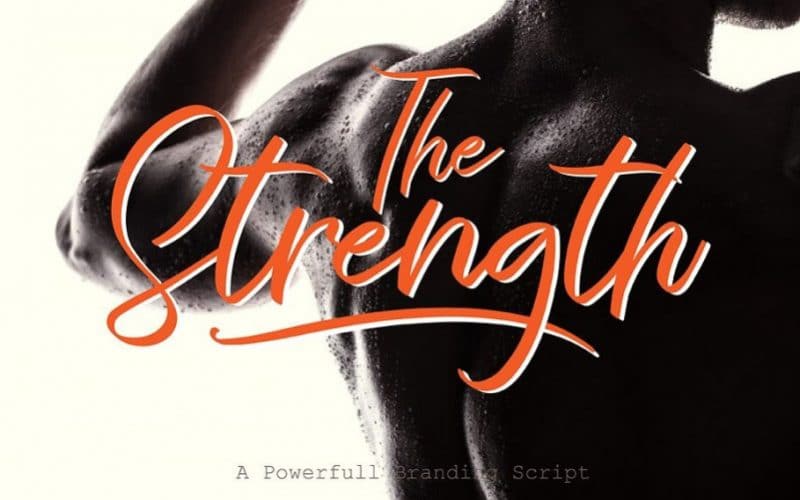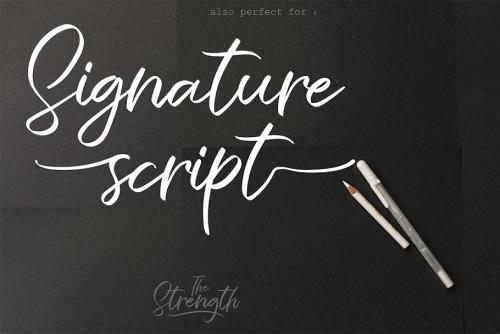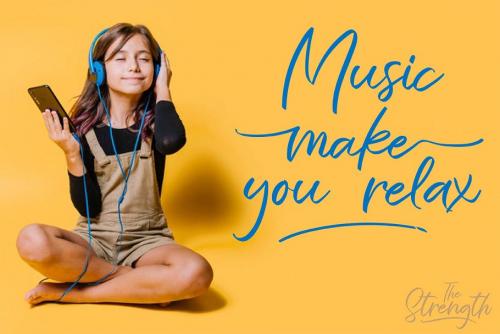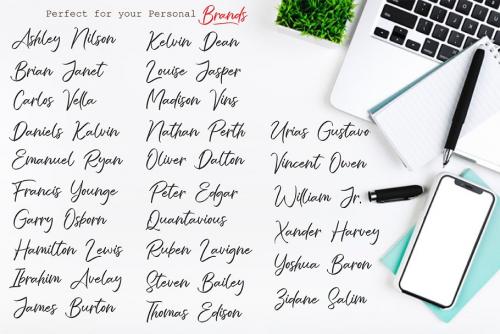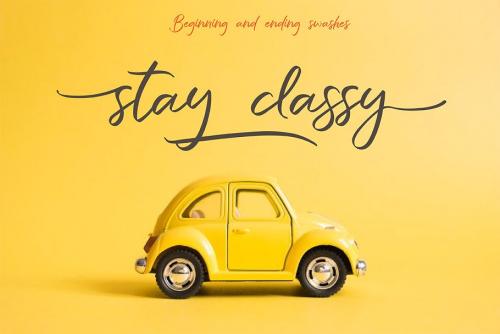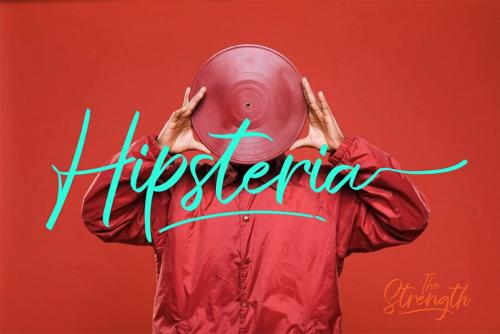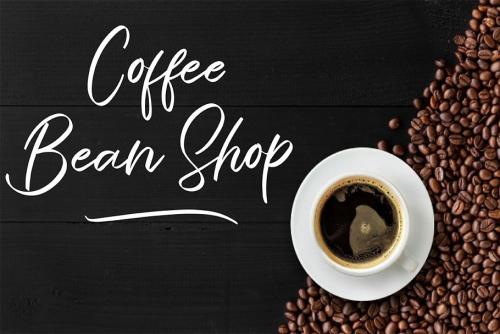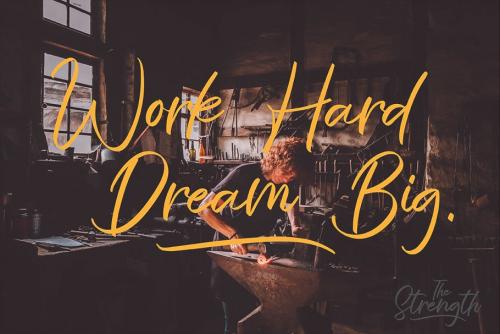
The Strength Handwritten Font is a powerfull classy script, full of personality and curves. This font was designed using quick strokes to create natural handwritten, to give the font a natural look in a digital world. Perfect for any awesome project that need hand writing taste.
This is suitable for logos, watermarks on photography, signatures, branding, advertisement, quotes, invitations, stationery, wedding design,album covers, business cards, clothing, magazines, posters, and more!
- Designer: AMINMARIO